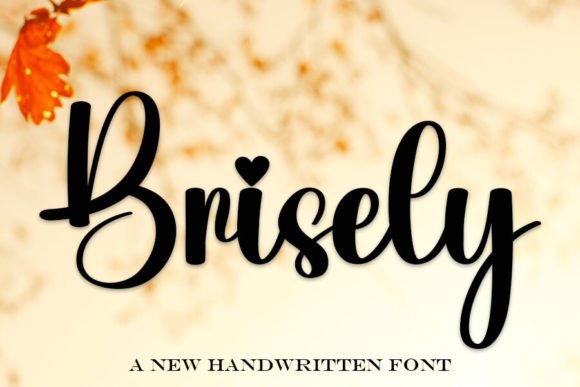
The Brisely Font: A Timeless, Handwritten Gem
I’ll never forget the design moment that led me to fall in love with the Brisely font. I was working on a project for a client who wanted a elegant, handwritten font to brand their new product line. As I scoured the internet for the perfect font, I stumbled upon Brisely, and it was love at first sight! ✨ Its unique blend of classic and modern elements instantly captured my attention, and I knew I had found the perfect fit.
- ✅ Elegant, cursive strokes that exude sophistication
- ✨ Incredibly distinct and timeless style that stands out from the crowd
- 💫 Perfect for a wide range of projects, from branding to invitations and more
- 🎨 Highly versatile, with plenty of OpenType features to explore
- ⚠️ Some users may find the font a tad too ornate for very small text sizes or body text
- 🤔 Limited availability of certain characters or glyphs, although this is rare
The Story Behind Brisely
While the origins of Brisely are shrouded in mystery, it’s said that the font was inspired by the elegant handwriting of 19th-century calligraphers. The creator of Brisely aimed to capture the essence of this timeless art form and make it accessible to designers and crafters around the world.
| What makes Brisely so special? | Brisely’s unique blend of classic and modern elements, combined with its elegant, cursive strokes, make it a standout font. |
| Is Brisely difficult to read? | No, Brisely is designed to be legible, even at smaller text sizes, making it perfect for a wide range of projects. |